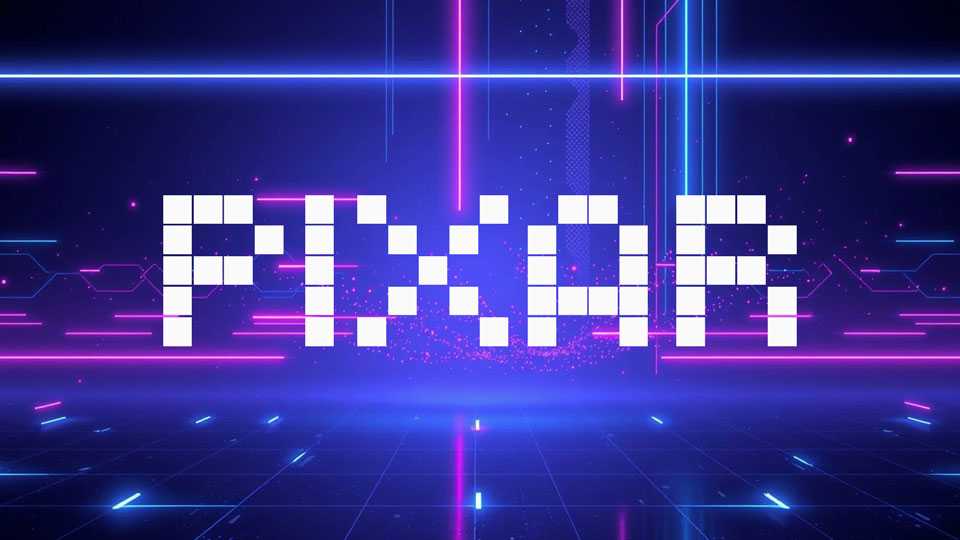
Download Pixar font, a digital-inspired display typeface built from perfect square modules, embodying the aesthetics of pixel art and retro gaming.
Designer: Vasiliy Shishkin